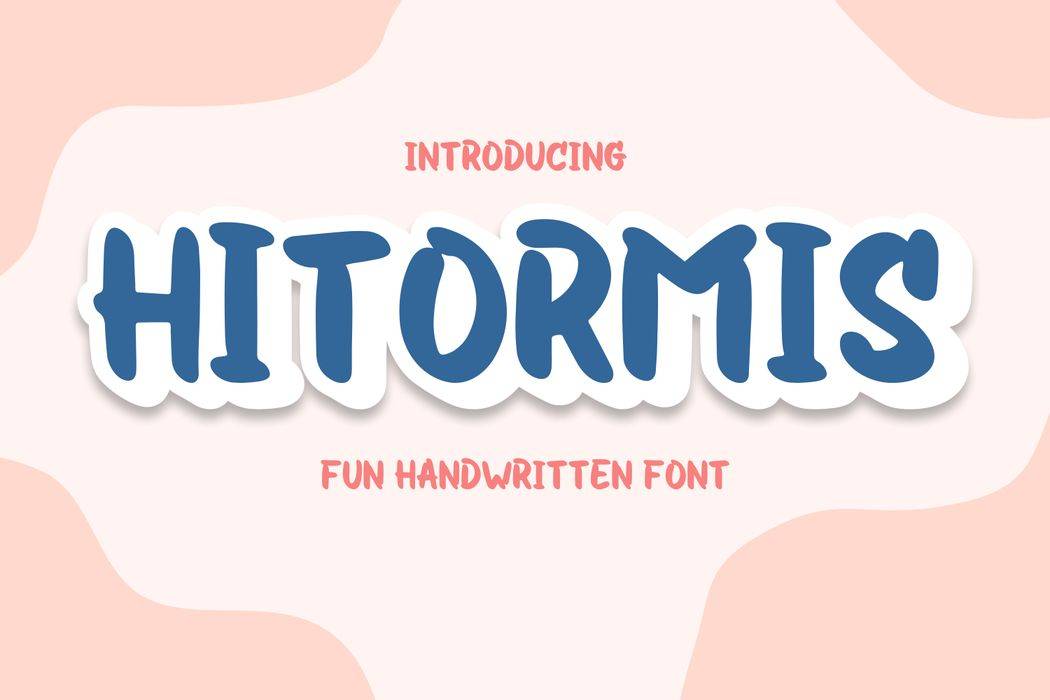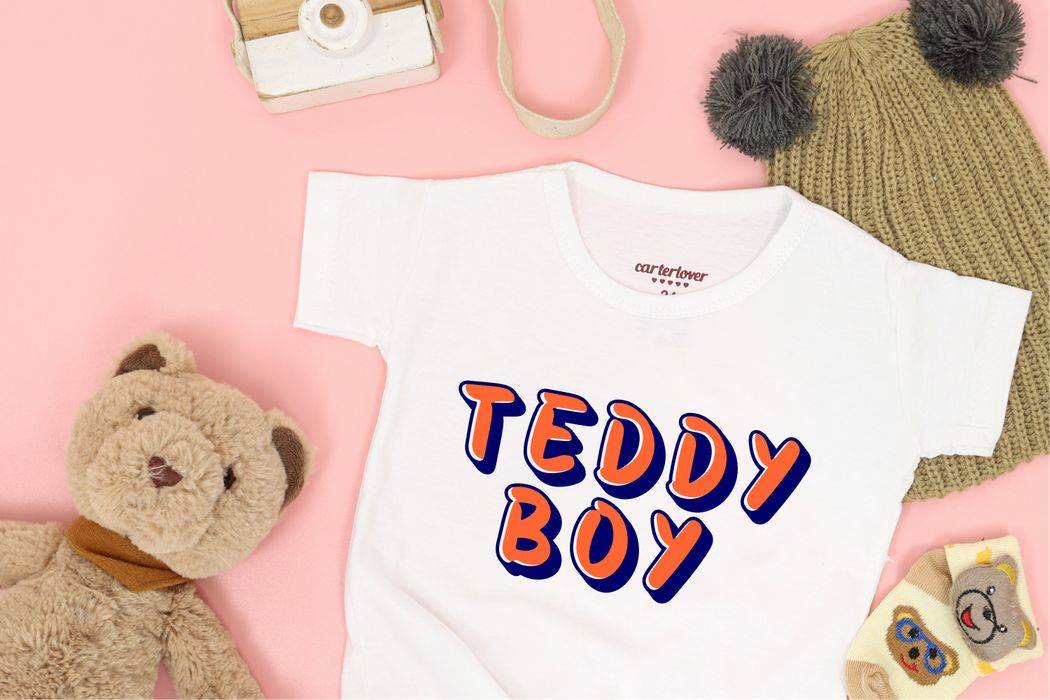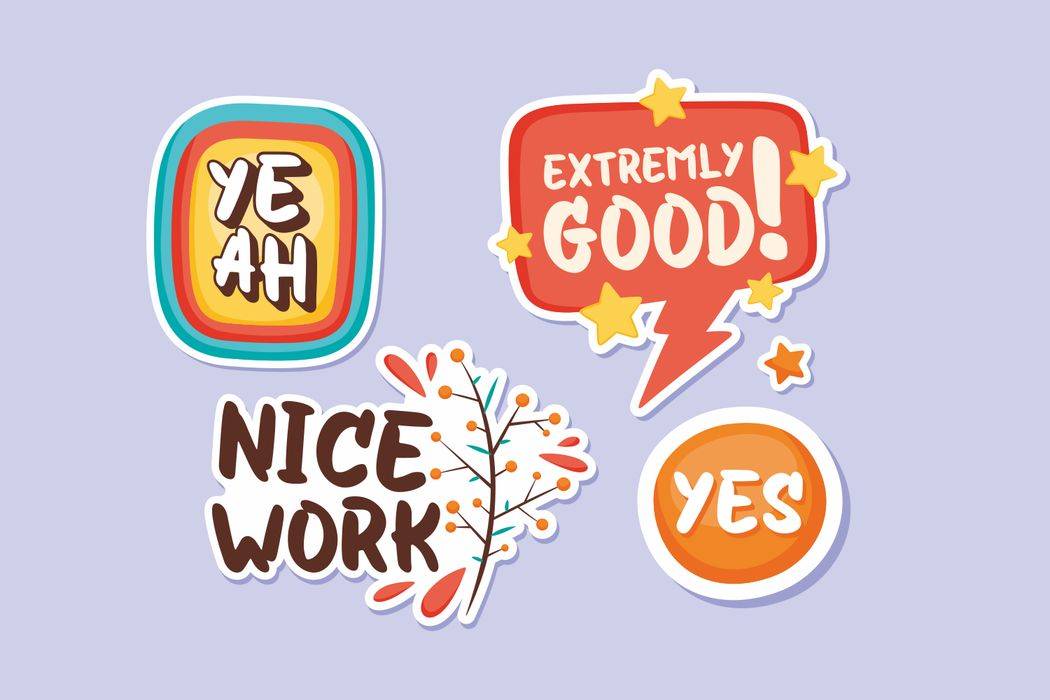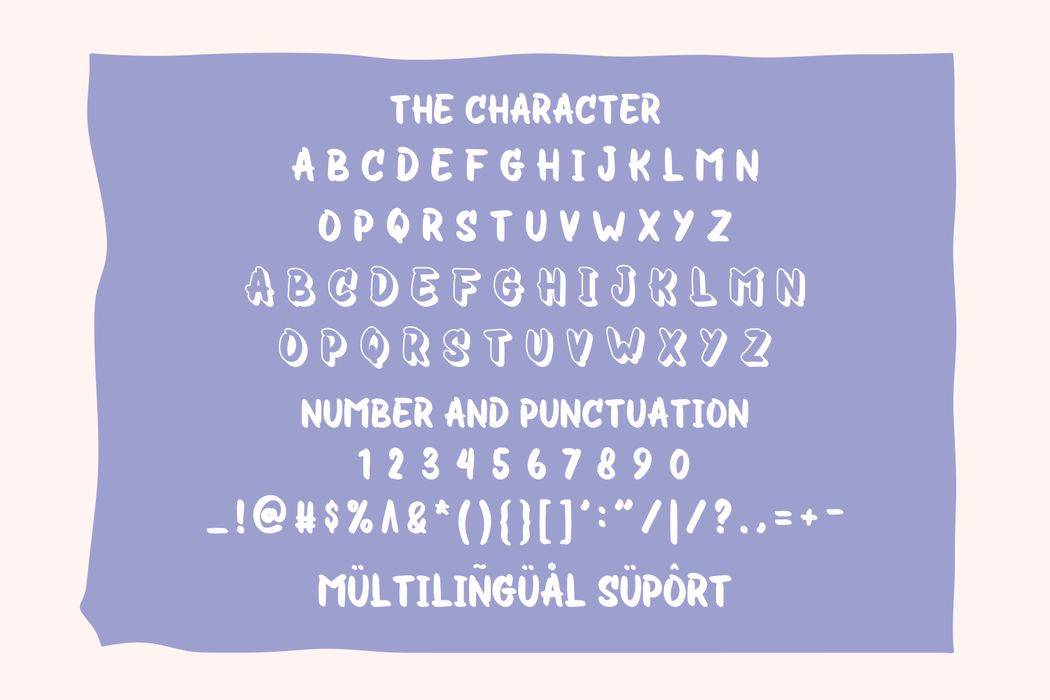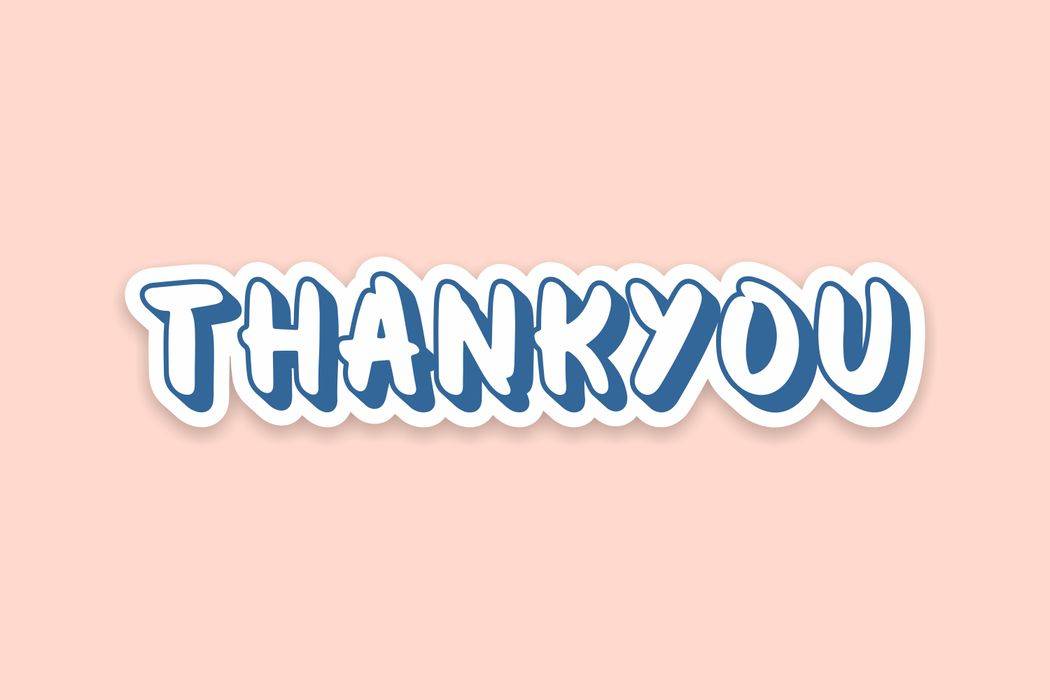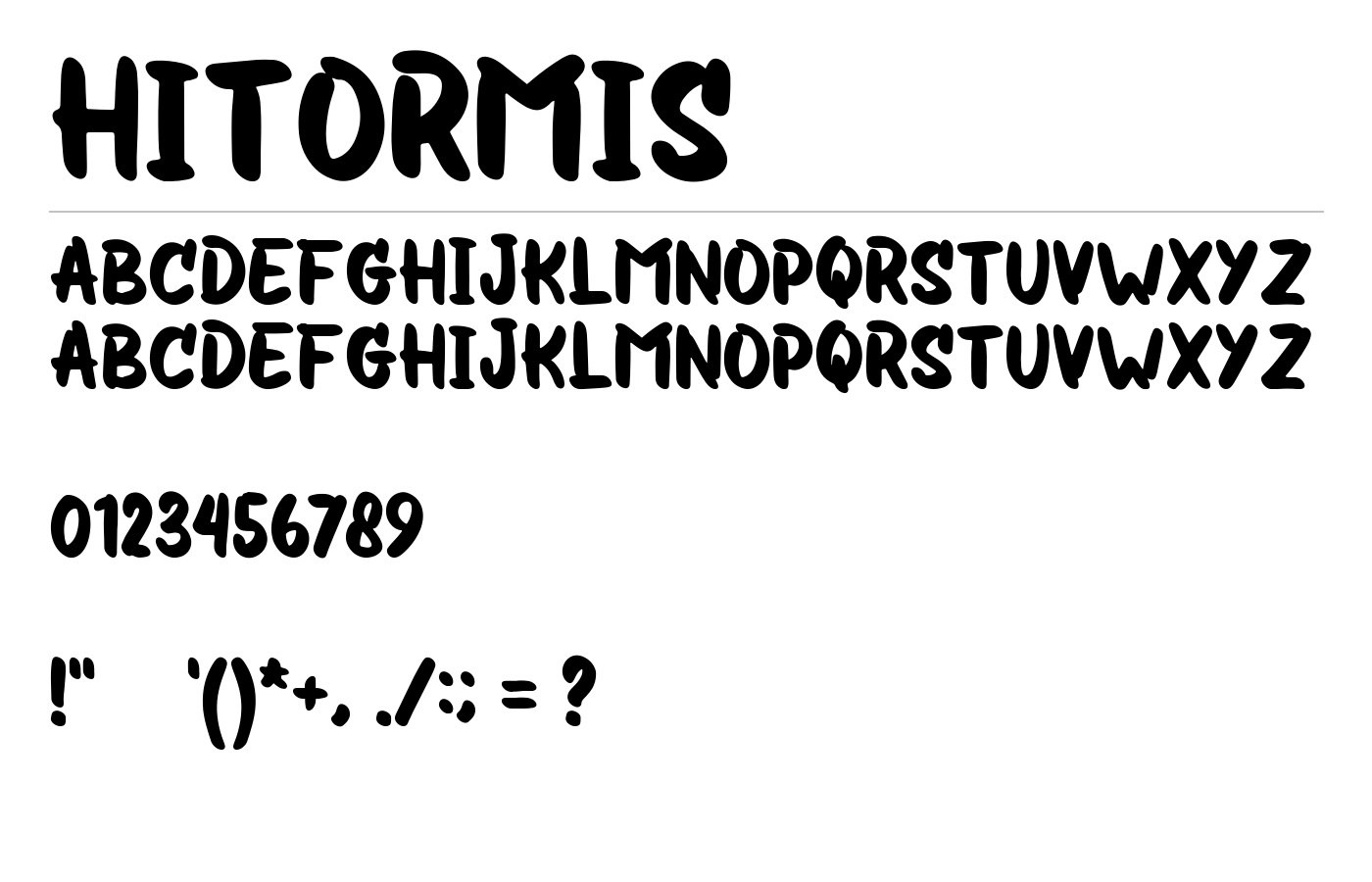
Hitormis is a bold, playful sans serif font with a hand-drawn, cartoonish style that brings a fun and friendly vibe to any design. Its rounded, irregular shapes and strong presence make it perfect for casual, lighthearted projects such as children’s books, posters, or informal branding where warmth and personality are key. This font works best in headlines and display text, capturing attention while maintaining an approachable and informal feel.
Hitormis Font
About Hitormis Font
| Font family | Hitormis Font |
| Designer | forberas |